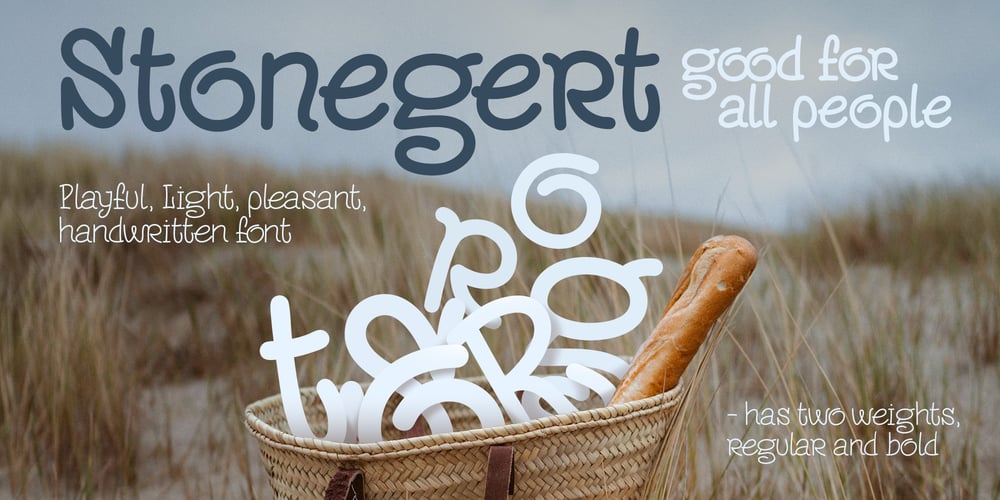
Stonegert Font Family was designed by Oleg Gert and published by Oleg Gert. Stonegert contains 2 styles and family package options. Stonegert – playful, friendly, Light, pleasant, handwritten typeface – has two weights, regular and boldWell suited for the design of children’s products, magazines, instagram posts and design layouts